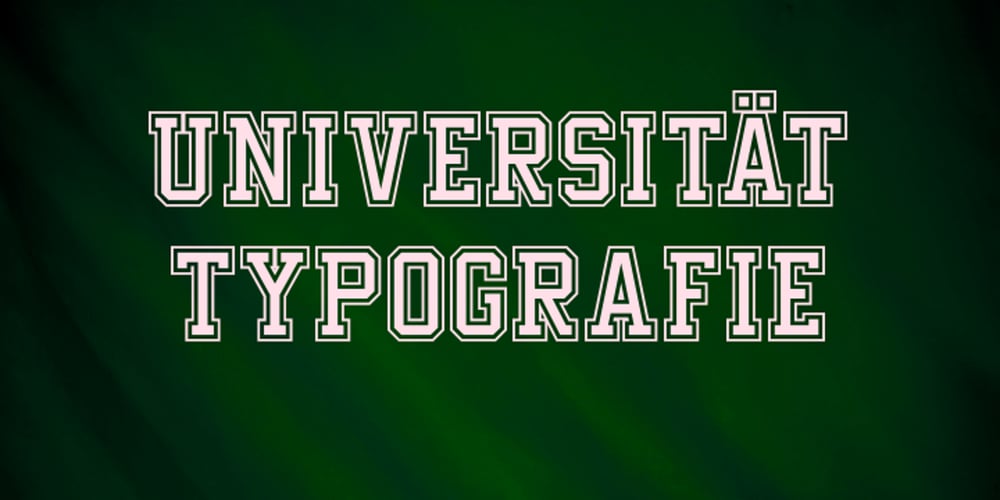
Undergrad
Undergrad font
Undergrad Font Family was designed by Thomas Käding and published by Thomas Käding. Undergrad contains 11 styles and family package options. This font began its life as a project to design a T-shirt for a student group on a large midwestern university. It has now grown up into a unicode font, including Greek and Cyrillic. It has that look and feel of the T-shirts that are ubiquitous on the campuses of colleges and universities over the world. It would make an ideal tool for designing them, as well as posters and banners. Characters in these fonts include Latin, for English and other European languages; small a and c for names like MacDonald; many fractions, including 0/3 needed in baseball; Latin with diacritical marks for Eastern and Western European, Turkish, and Baltic languages; thorn, eth, cedilla, AE, OE, and sharp S for French, German, Icelandic; Latin extensions for clicks of some African languages; Greek (with tonos); Cyrillic for Russian and many other Slavic and Asian languages that use it; most Runes (the full Futhark plus a few more); six-point Brialle; currency symbols for dollar, cent, pound, yen, euro; and a few other extras like the peace sign. Available styles are regular block letters, outlines, and bold.